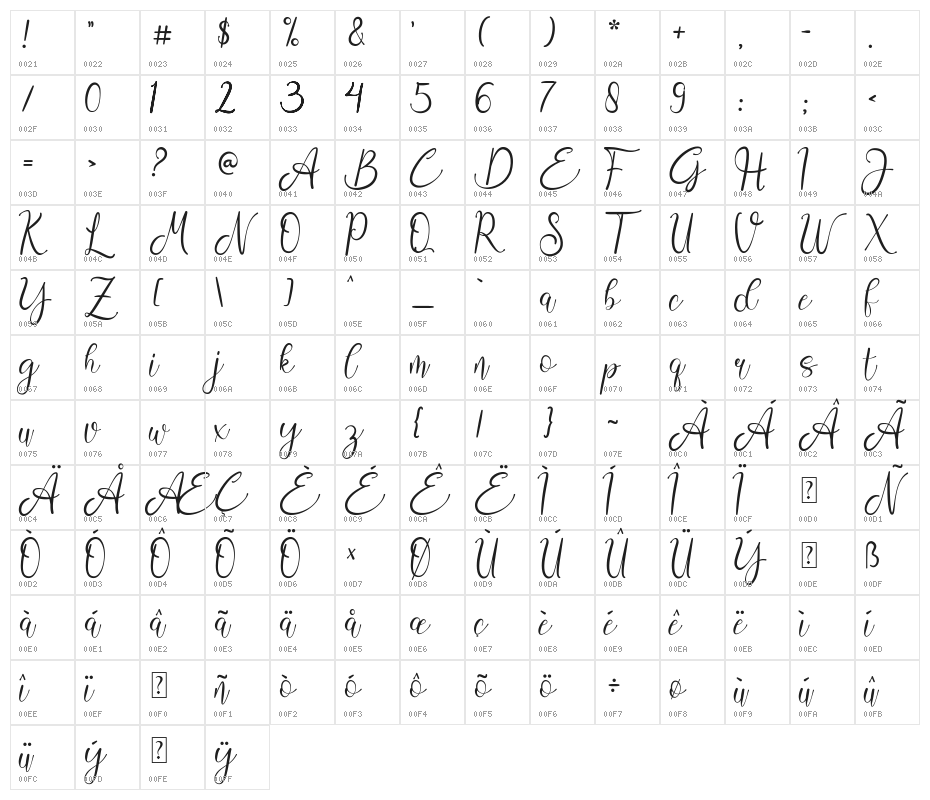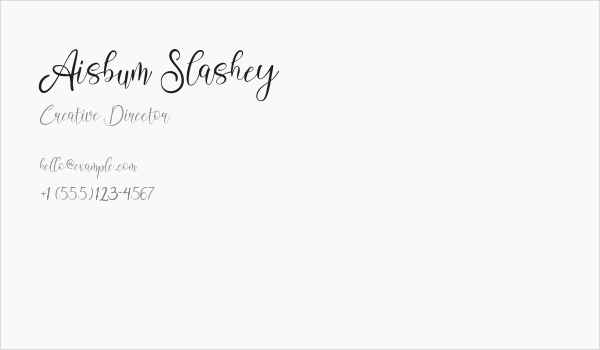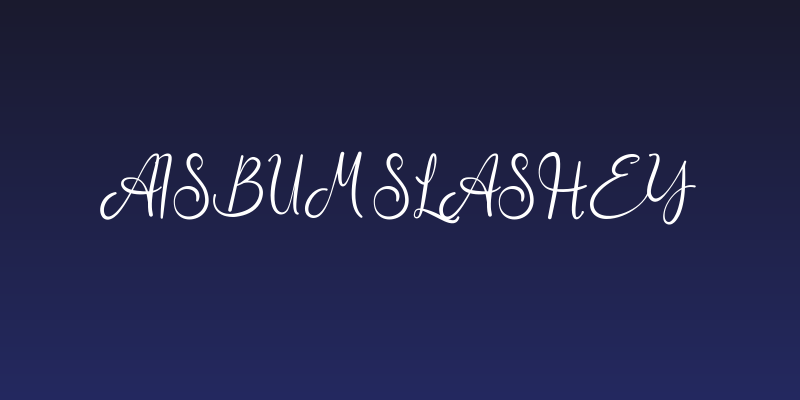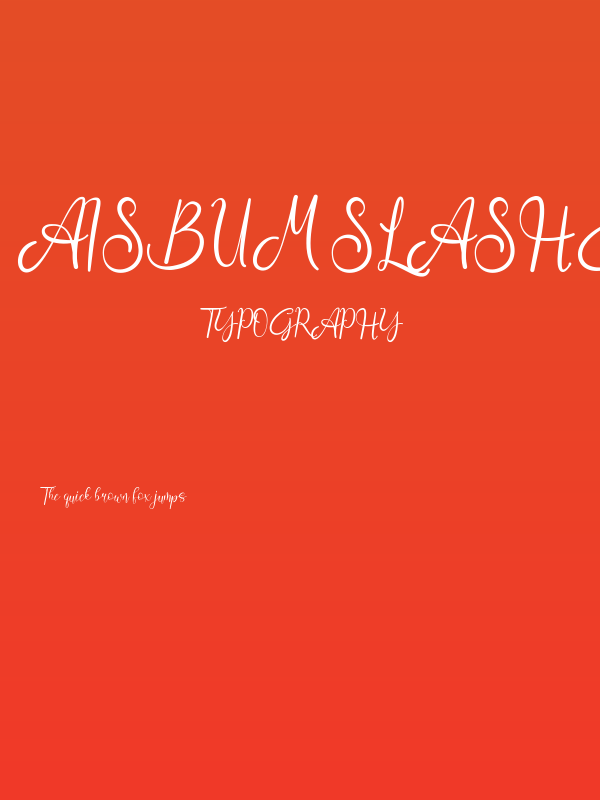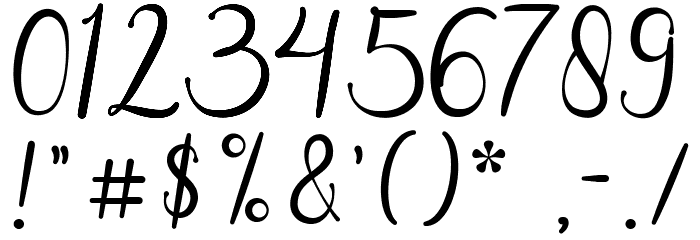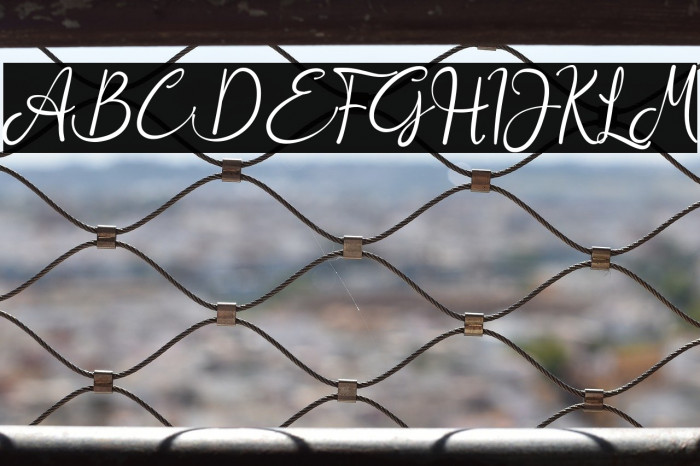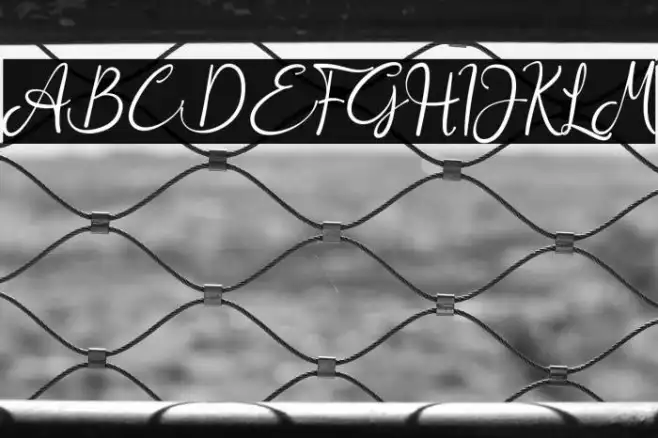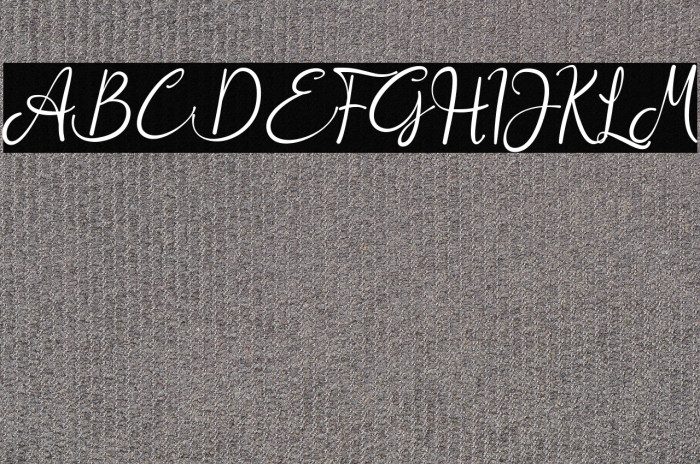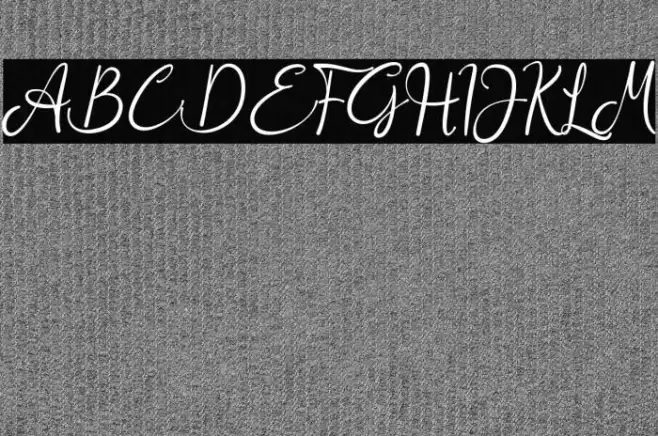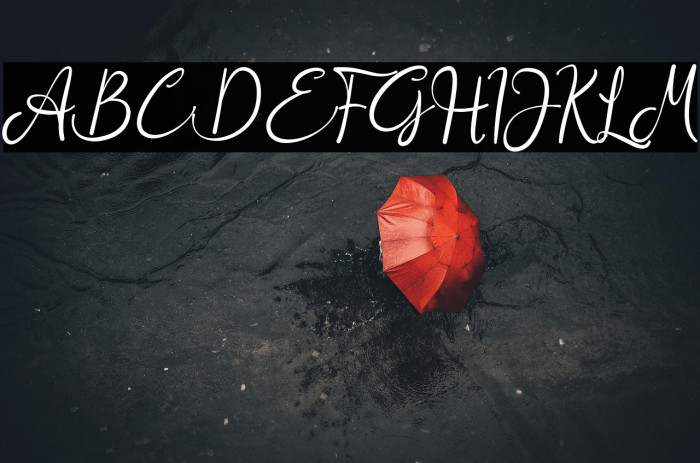
Aisbum Slashey Font
Aisbum Slashey Description
This font features an elegant and flowing script style, characterized by its smooth, cursive strokes and graceful curves. The uppercase letters are tall and slightly narrow, with distinctive loops and flourishes that add a touch of sophistication. The lowercase letters maintain a consistent flow, with some letters extending below the baseline, enhancing the font's fluidity. Numbers are designed with a similar elegance, featuring rounded shapes and balanced proportions. The special characters complement the overall style, maintaining the same cursive and decorative elements. This font is perfect for projects that require a touch of elegance and creativity.